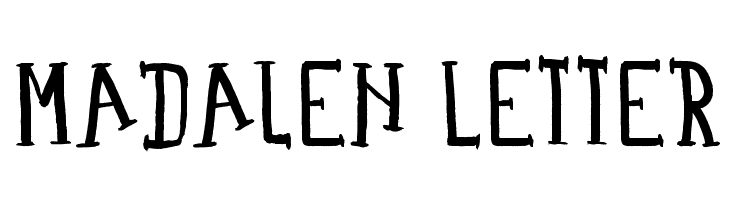
A rustic, hand-drawn font with bold, playful characters and uneven strokes.
A bold, decorative font with playful serifs and artistic flair.
A distressed, grunge typeface with a hand-drawn, vintage aesthetic.
A grungy, narrow font with a distressed, handmade appearance.